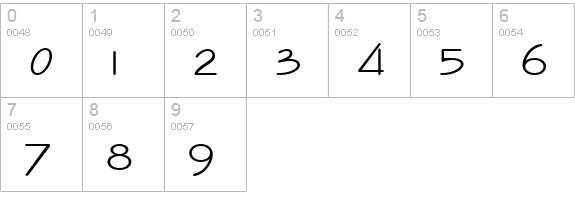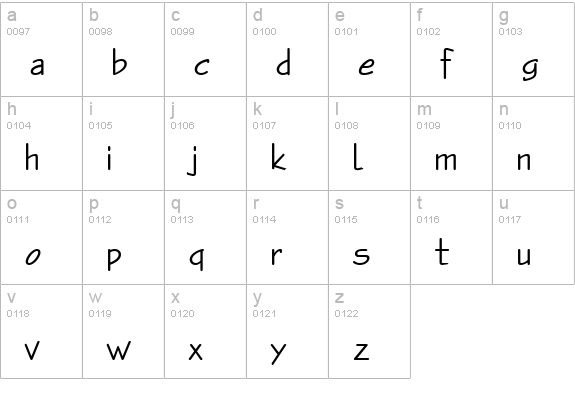
FFX Designer HW Font Details
The FFX Designer HW font is a stunning typeface that combines elegance and modernity in a unique way. Its sleek lines and intricate details make it perfect for a wide range of design projects, from branding to editorial layouts. This versatile font exudes sophistication and style, making it a must-have in any designer's toolkit. Best of all, the FFX Designer HW font is completely free to use and is available for download at FontsMarket.com. Whether you're working on a personal project or a commercial endeavor, this font is sure to elevate your designs to the next level. Don't miss out on the opportunity to add this beautiful typeface to your collection today!